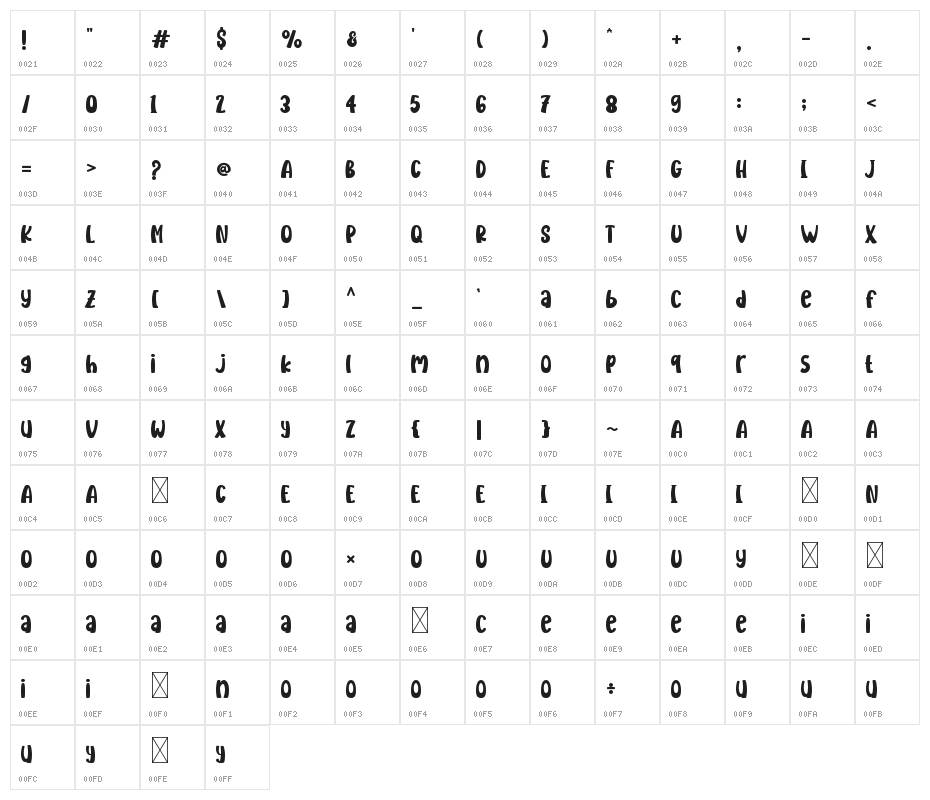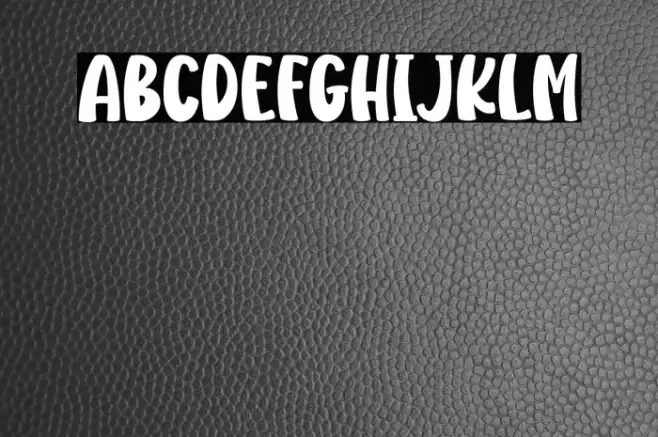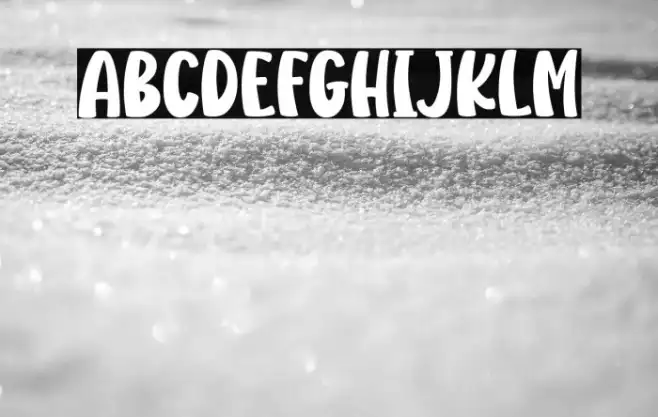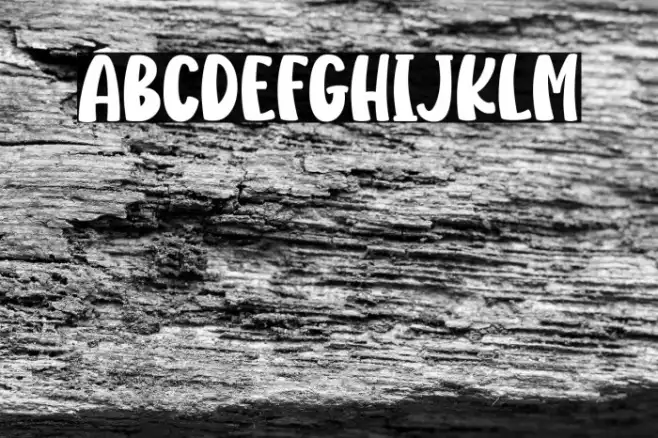
Neyra Font
Neyra Description
This font features a playful and bold design with rounded edges and a slightly irregular baseline, giving it a whimsical and friendly appearance. The characters are thick and have a consistent weight, making them highly legible. The uppercase and lowercase letters maintain a uniform style, while the numbers and special characters complement the overall look. This font's unique style makes it stand out, perfect for projects that require a touch of fun and creativity.
| Proposed Projects | Ideal for children's books, playful branding, posters, and greeting cards. |